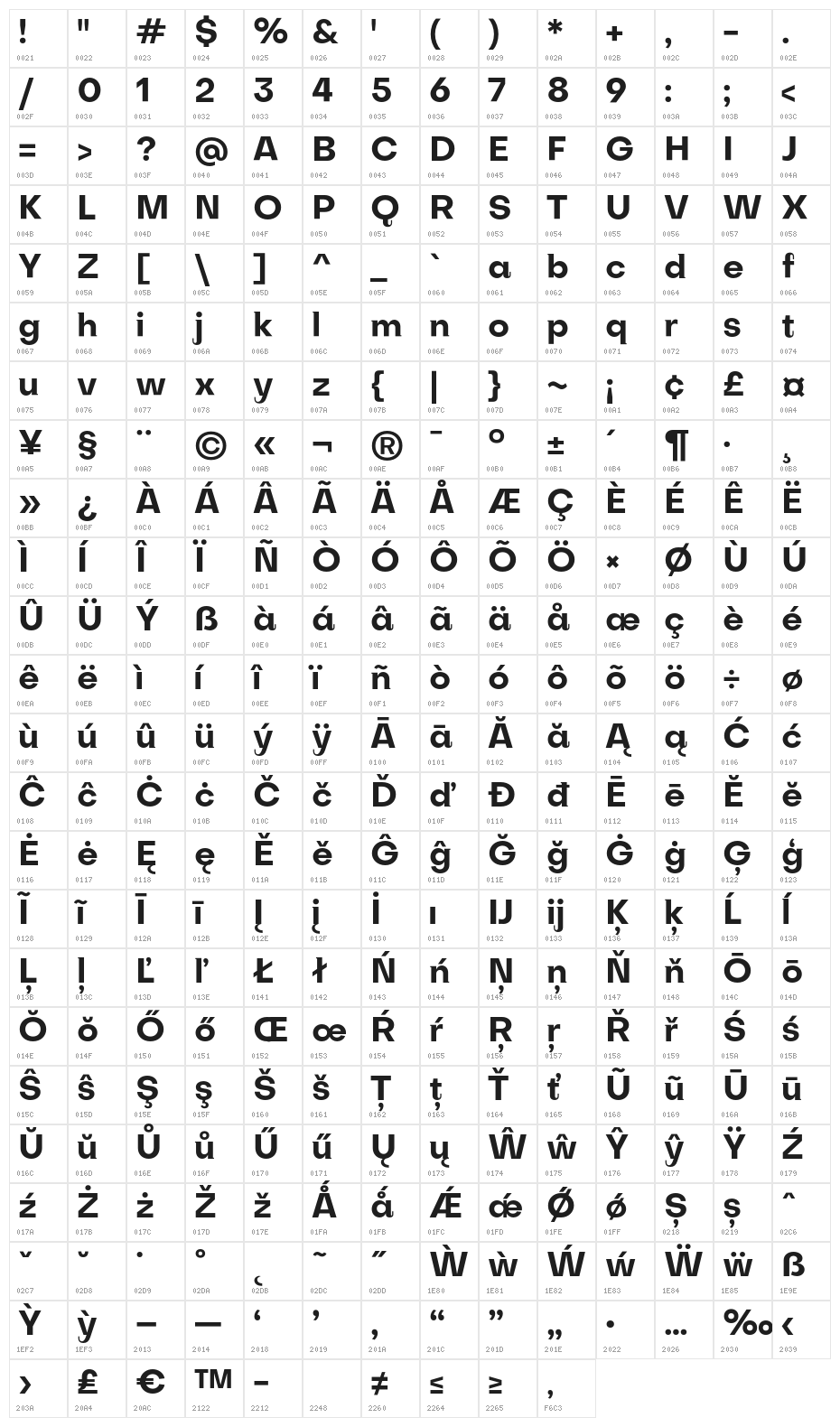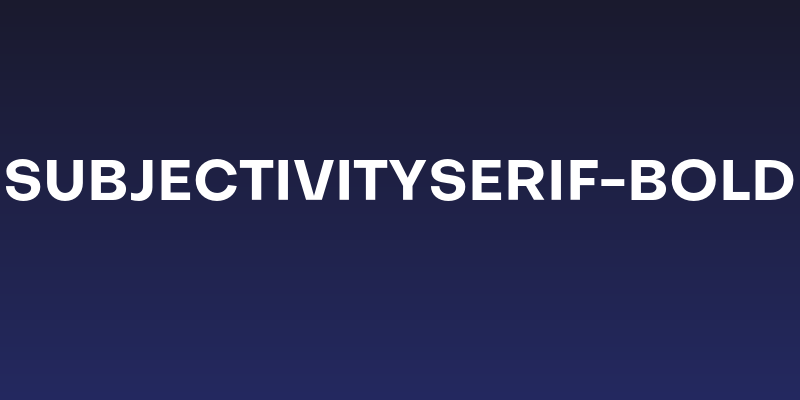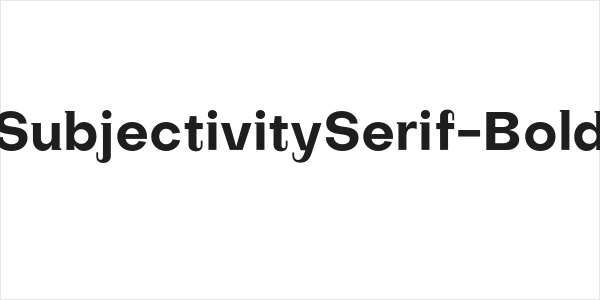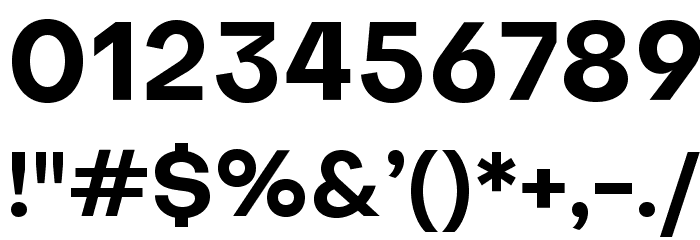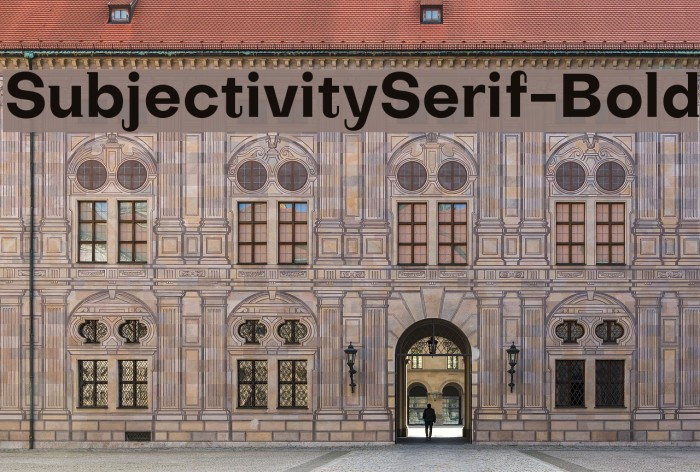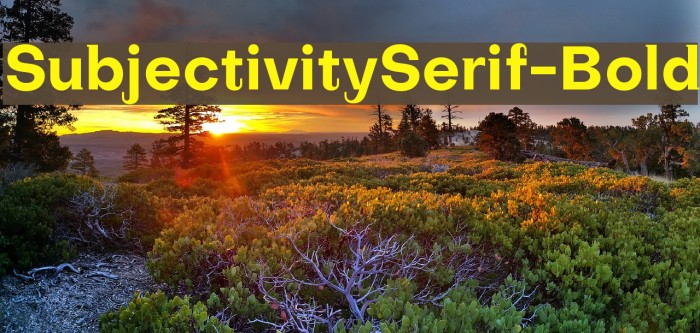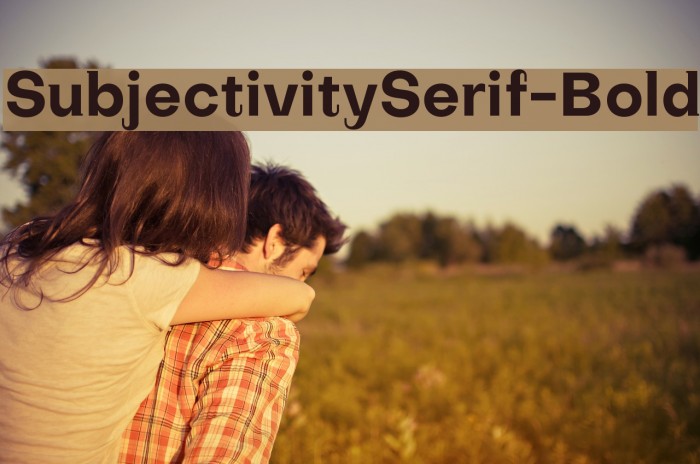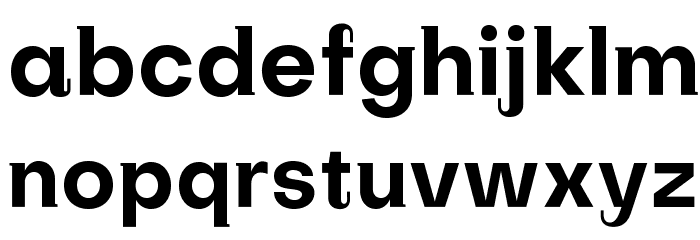
SubjectivitySerif-Bold Font
SubjectivitySerif-Bold Description
This font features bold, strong lines with a modern and clean aesthetic. The characters are well-defined with a consistent stroke weight, providing a sense of stability and clarity. The uppercase letters are robust and commanding, while the lowercase letters maintain a harmonious balance with slightly rounded edges. The numerals are clear and straightforward, ensuring readability. Special characters are designed to complement the overall style, adding versatility to the font's use. The uniformity in character width and spacing contributes to a cohesive appearance, making it suitable for various design applications.
| Proposed Projects | Ideal for branding, advertising, headlines, and digital media where a strong visual impact is needed. |